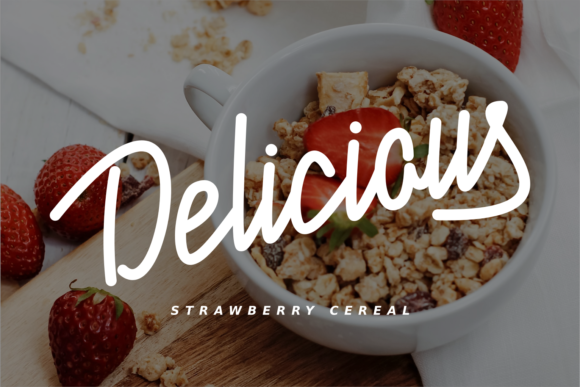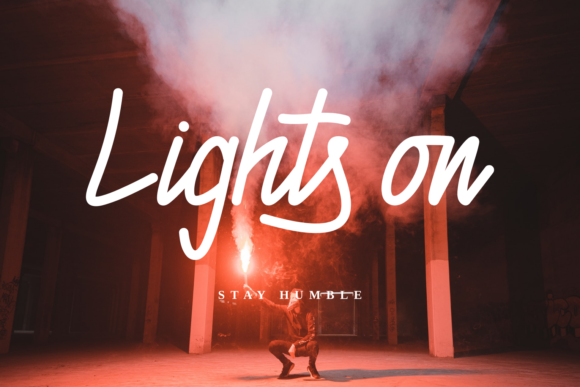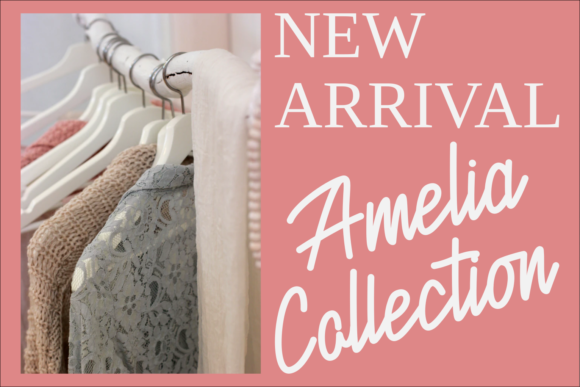
Introduction to Rachelina Font Font
Fonts play a crucial role in design, and the Rachelina Font font is a typeface that brings both character and versatility to any project. Whether you’re working on a branding project, a website, or a print design, the Rachelina Font font offers a unique style that can elevate your work.
Rachelina is an elegant script font with a contemporary atmosphere and impeccable form, inspired by timeless classic calligraphy.
Not too thin and not too thick, balanced and varied, this font was designed to enhance the beauty of your projects .
Key Features of Rachelina Font Font
Why Choose Rachelina Font Font?
The Rachelina Font font is more than just a typeface – it’s a design tool that helps you communicate your message with style and clarity. Its unique character set and versatile design make it suitable for a wide range of applications, from elegant invitations to bold headlines.
With its carefully crafted letterforms and balanced proportions, the Rachelina Font font ensures readability and visual appeal across all mediums.
What makes Rachelina Font font special?
The Rachelina Font font stands out with its unique design, exceptional readability, and versatility across various design applications.